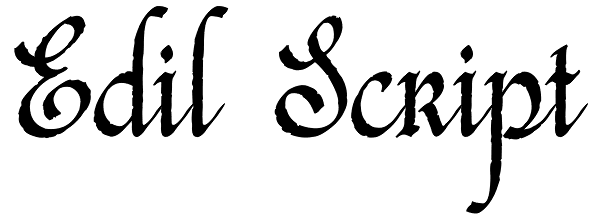
Edil Script
Edil Script is a hand-drawn connected script with the use of a Medium Point Calligraphy Pen on a textured paper. This typeface has 380+ glyphs with great legibility and it is available in TrueType Font. Edil Script is a tribute to my father who...